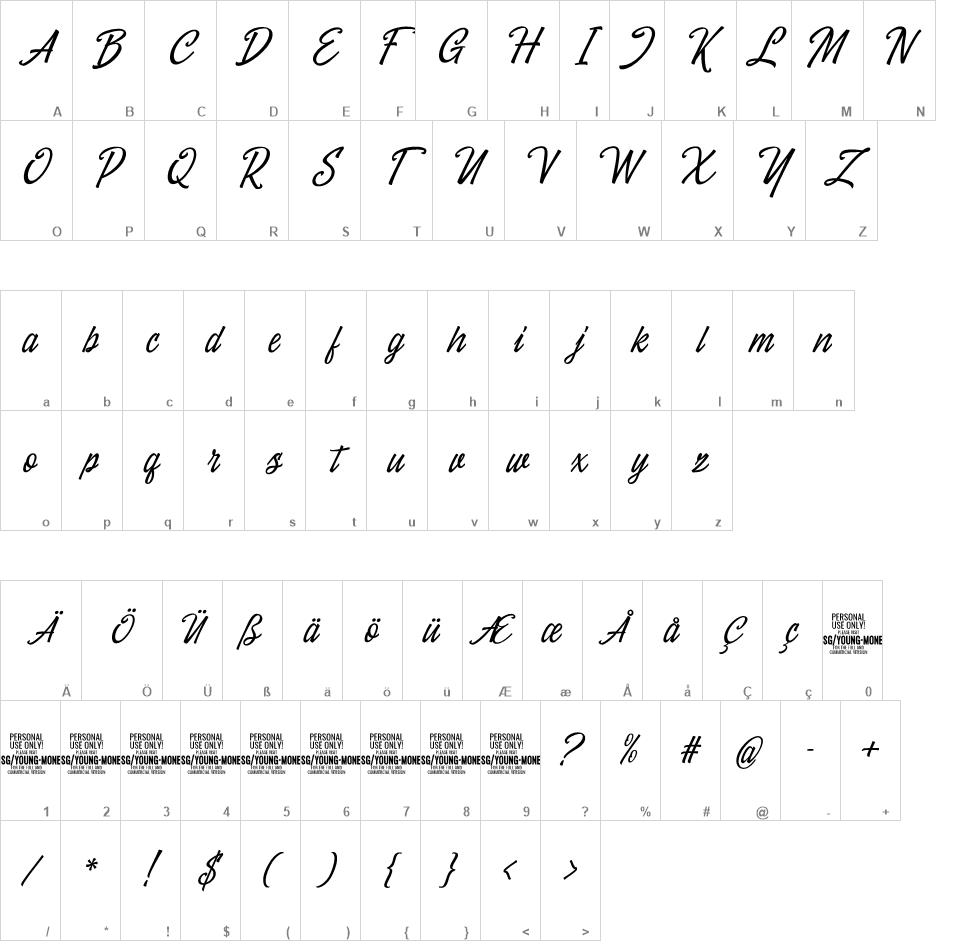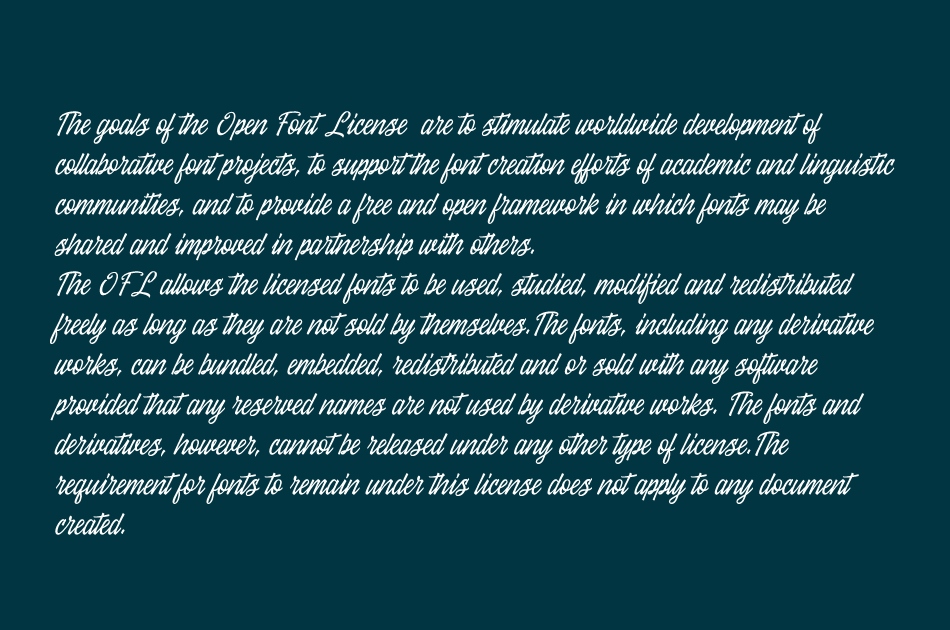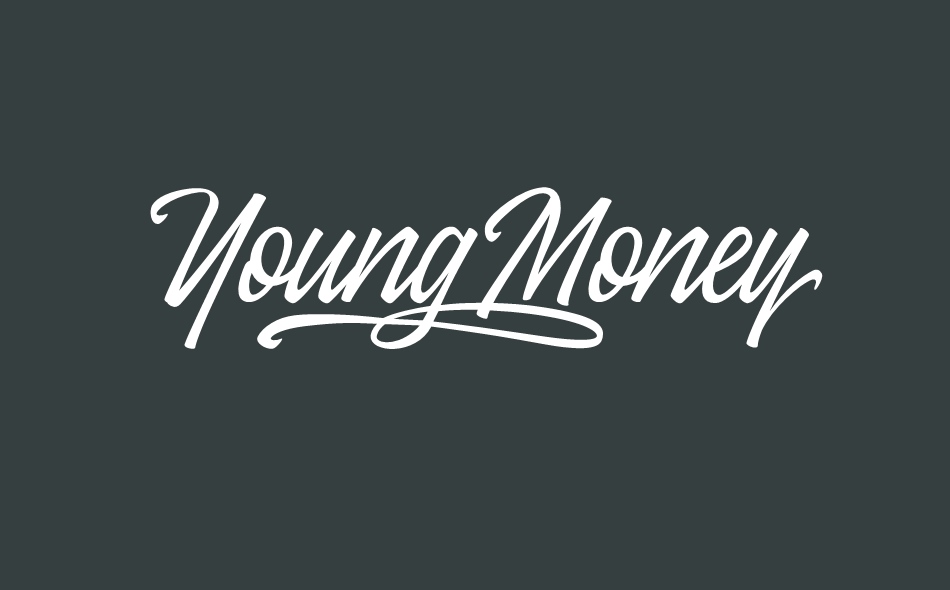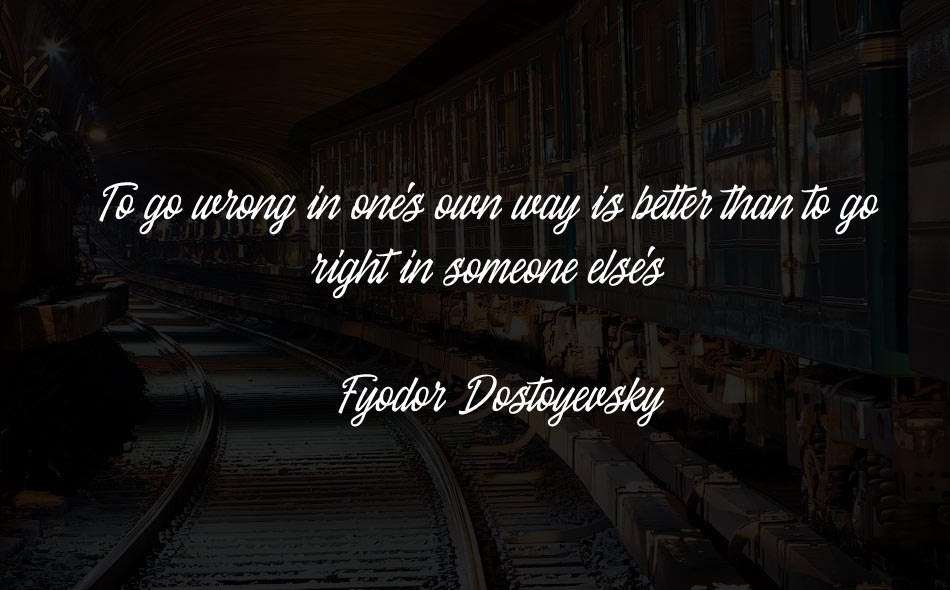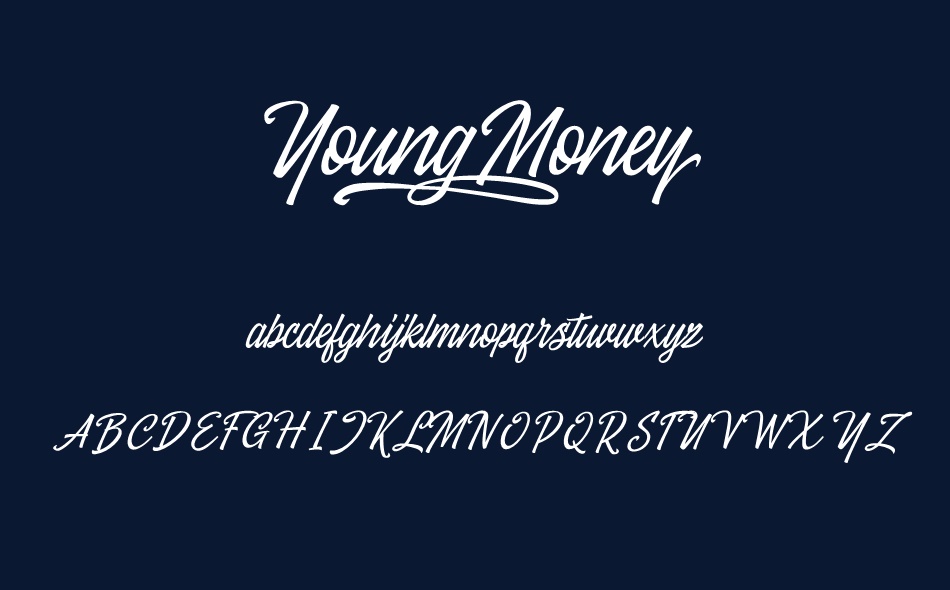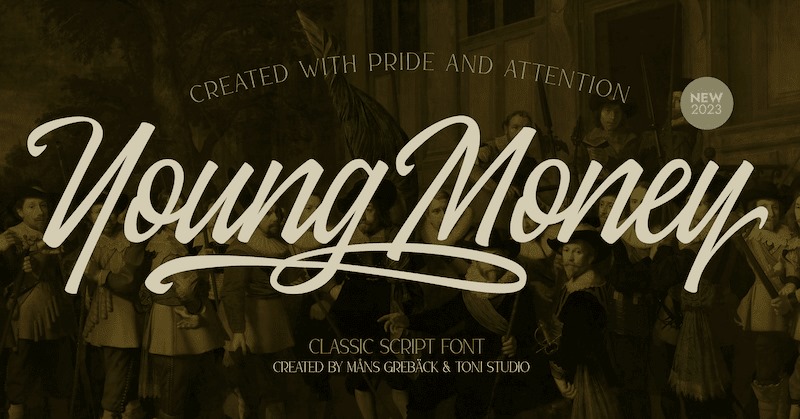
Young Money font
Use underscore _ after a word to make a swash.
Example: Wild_
Use multiple underscores to make longer swashes.
Example: Bonfires_____
Use # after any letter to make a swash version.
Example: Spring#Zone#
Young Money is a script font that expresses a sense of forwardness and spontaneity. Its calligraphic strokes were created with a brush, giving it a wild and fast appearance that's perfect for conveying energy and movement. This font is ideal for sporty designs, trendy logos, and anything that requires a touch of youthful vigor.
With its Bold and Italic styles, Young Money is versatile enough to be used for a variety of design purposes. The Italic style gives the font a more emphasized look, while the Bold style adds an extra level of impression and strength. The swashes included in the font allow for even more customization, giving designers the ability to create truly unique and expressive designs.
Whether you're designing a logotype, poster or product brand, Young Money is a font that perfectly captures the spirit of youth and vitality.
Use underscore _ after a word to make a swash. Example: Wild_
Use multiple underscores to make longer swashes. Example: Bonfires_____
Use # after any letter to make a swash version. Example: Spring#Zone#
The font is built with advanced OpenType functionality and has a guaranteed top-notch quality, containing stylistic and contextual alternates, ligatures and more features; all to give you full control and customizability. It has extensive lingual support, covering all Latin-based languages, from Northern Europe to South Africa, from America to South-East Asia. It contains all characters and symbols you'll ever need, including all punctuation and numbers.